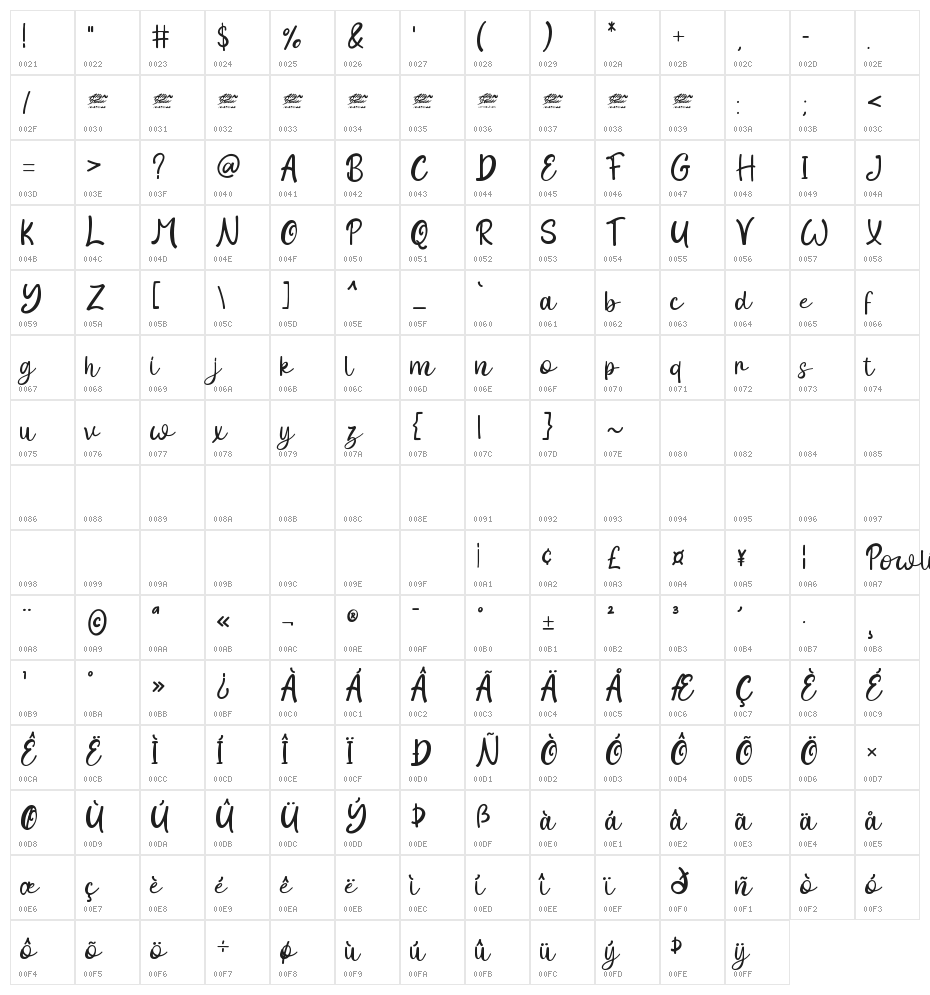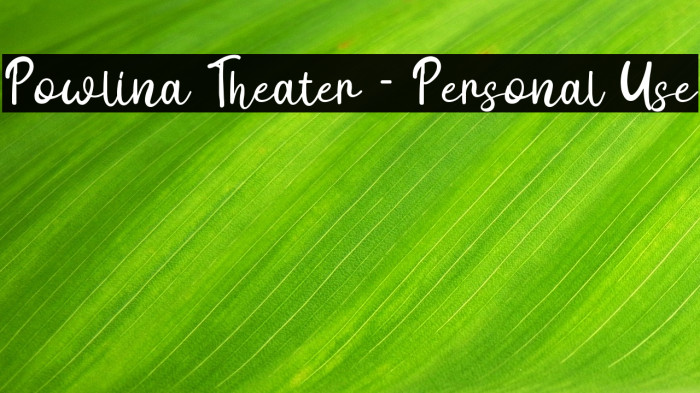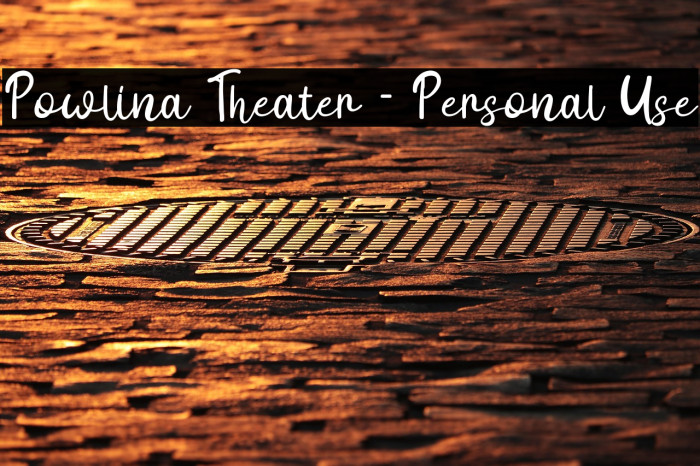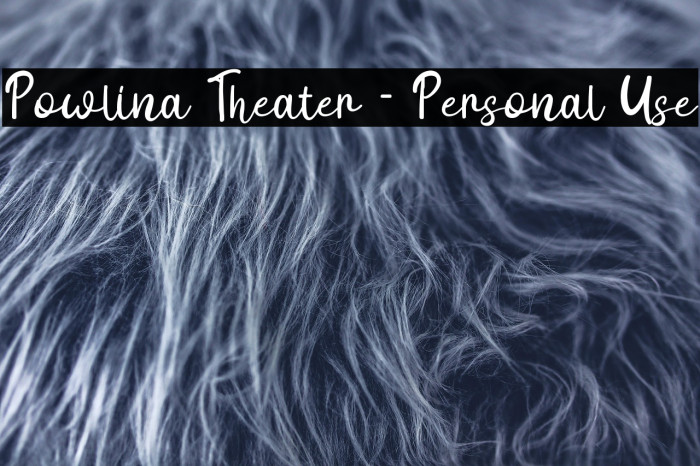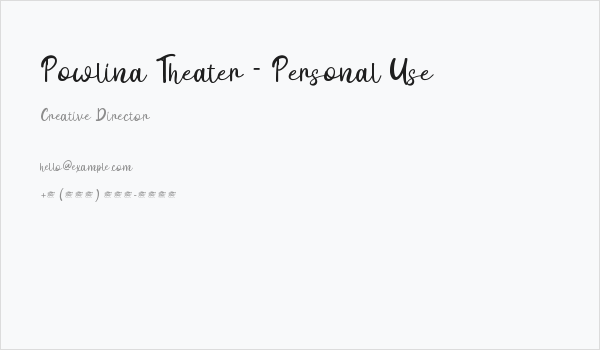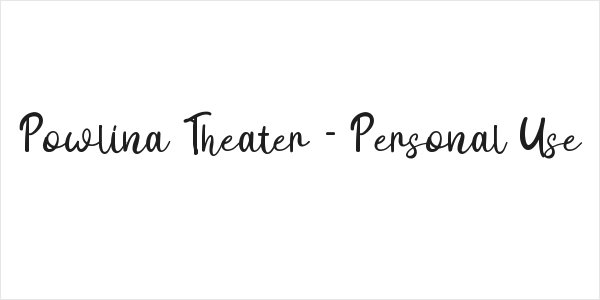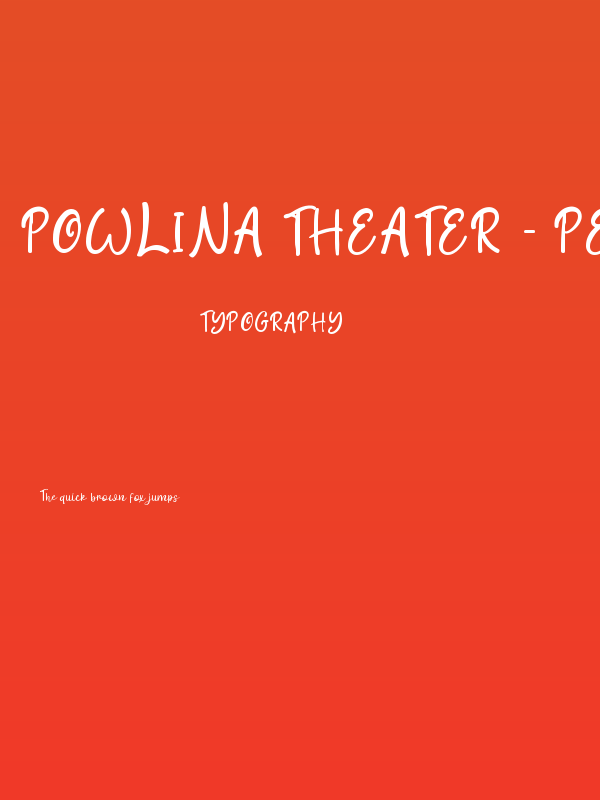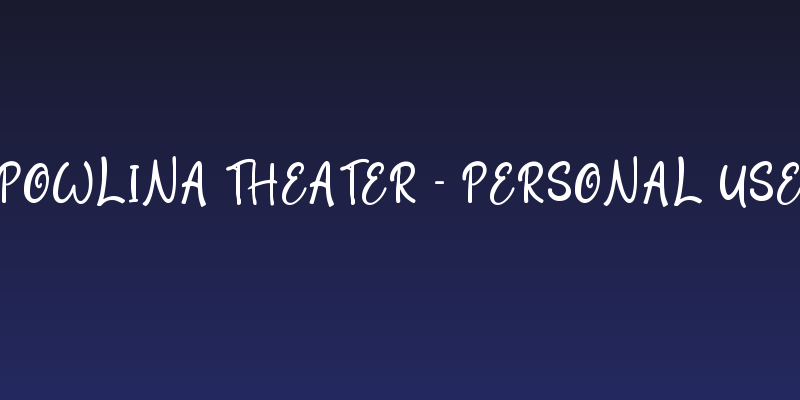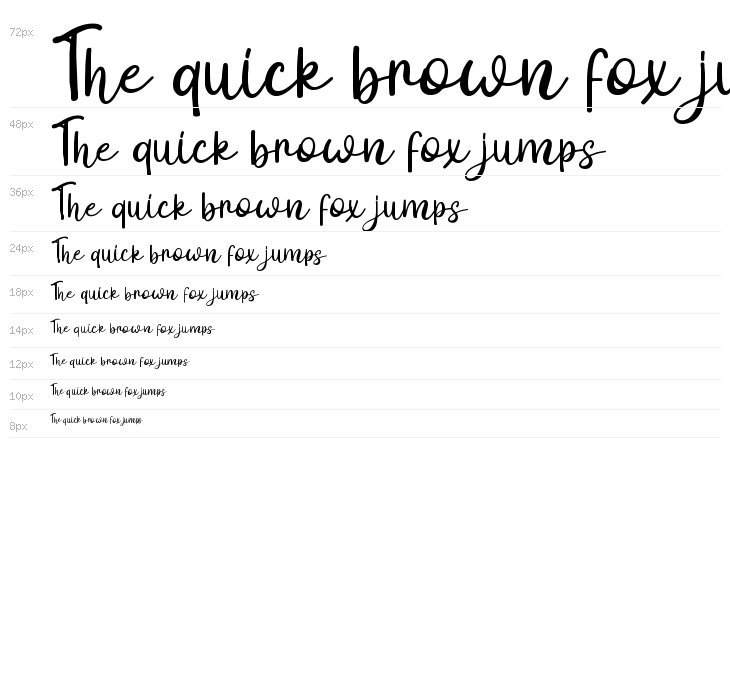
Powlina Theater - Personal Use Font
Powlina Theater - Personal Use Description
This font features a playful and dynamic script style, characterized by its fluid and smooth curves. The uppercase letters are bold and slightly slanted, giving a sense of movement and energy. The lowercase letters maintain a consistent flow, with some letters extending below the baseline, adding a touch of elegance. The numbers and special characters are designed to match the overall style, ensuring a cohesive look. This font is ideal for projects that require a personal and informal touch, such as invitations, greeting cards, or branding for creative businesses.